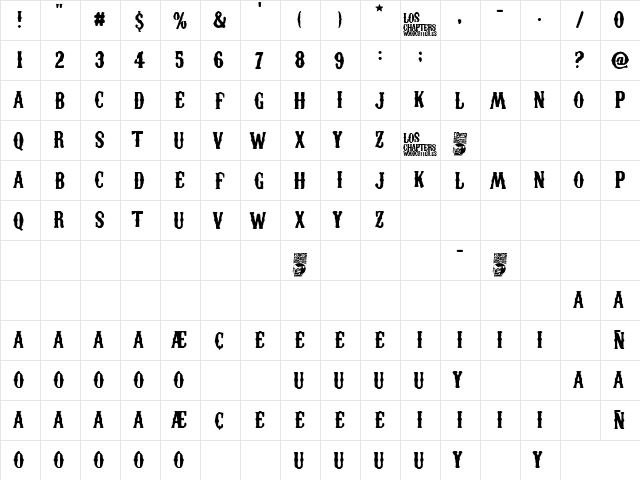
Los Chapters Regular
| Designer | Woodcutter Manero |
Design Context for Los Chapters Typeface
Los Chapters is a composed and adaptable typeface that performs quietly and consistently across a wide range of design contexts.